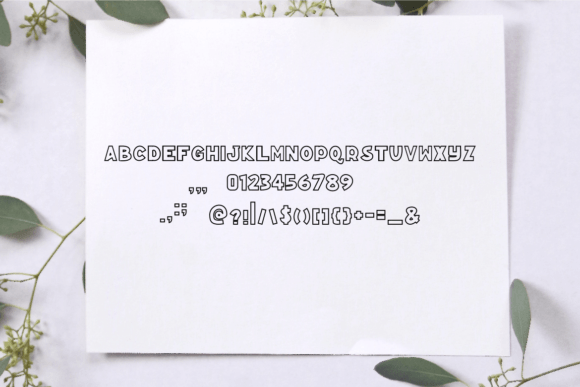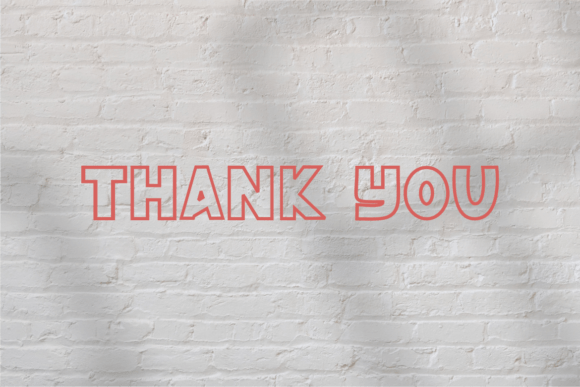
Introduction to Ralixet Outline Font
Have you ever been working on a design project and suddenly felt stuck, unable to convey the playfulness and whimsy you envisioned? That’s where the Ralixet Outline Font comes in – a fun and quirky display font that can breathe new life into your creative projects.
With its unique, hand-drawn style and transparent background, this high-quality font is the perfect design resource for designers looking to add a touch of personality to their work. Whether you’re creating a logo, social media graphics, or an entire branding package, Ralixet Outline Font is sure to deliver the results you’re looking for.
Key Features of Ralixet Outline Font
- High-quality design resource ideal for creative projects, offering a unique and stylish look.
- Features a transparent background, making it easy to integrate into any design without visual clutter.
- Designed with a high resolution, suitable for use in print materials, digital displays, and other visual media.
- Perfect for designers looking for a high-quality, free font to enhance their creative projects.
- Unique outline design adds a touch of sophistication and elegance to any text or logo.
Honest Review: Ralixet Outline Font
I recently stumbled upon the Ralixet Outline Font, and I must say it’s been a great addition to my design resource library. The first thing that caught my attention was the high quality of the font, which looks perfect for any creative project.
- ✨ Clear and readable outline: The font’s outline is clean and easy to read, making it perfect for titles and headings.
- ✨ Customizable: The font can be easily customized to fit any design style, thanks to its versatile and modern look.
One thing I wish the font had was more font sizes, but overall, it’s a great addition to any design library. I’ve used it for several projects, and it always looks professional and high-quality.
Overall, I’m impressed with the Ralixet Outline Font, and I highly recommend it to anyone looking for a free and high-quality design resource. Just be aware that it may not be suitable for projects that require a transparent background, as it doesn’t come with that feature.
⚠️ Limitation: The font may not be suitable for projects that require a transparent background.
Tips for Getting the Most Out of Ralixet Outline Font
Use the Ralixet Outline Font for titles, headings, and other design elements where a high-quality, free download font is needed. Experiment with different font sizes, colors, and layer styles to achieve the desired effect.
The Ralixet Outline Font is ideal for use in presentations, documents, and digital designs where a high-quality, free download font is needed. Common use cases include:
* Creating eye-catching titles and headings
* Designing digital assets for social media and marketing campaigns
* Adding a professional touch to presentations and documents
Alternatives to Ralixet Outline Font
Comic Sans MS is a sans-serif font designed by Vincent Connare in 1994. It’s a popular choice for creative projects that require a friendly and approachable tone. When to use: Flyers, brochures, social media posts. How it compares to Ralixet Outline Font: Comic Sans MS is more informal and less professional compared to Ralixet Outline Font, making it suitable for a design resource that needs a casual tone.
Open Sans is a modern sans-serif font designed by Steve Matteson in 2010. It’s a high-quality font suitable for a wide range of creative projects, including web design, print materials, and digital media. When to use: Websites, apps, magazines, and books. How it compares to Ralixet Outline Font: Open Sans is more versatile and has a more transparent background compared to Ralixet Outline Font, making it a better choice for design projects that require a clean and modern look.